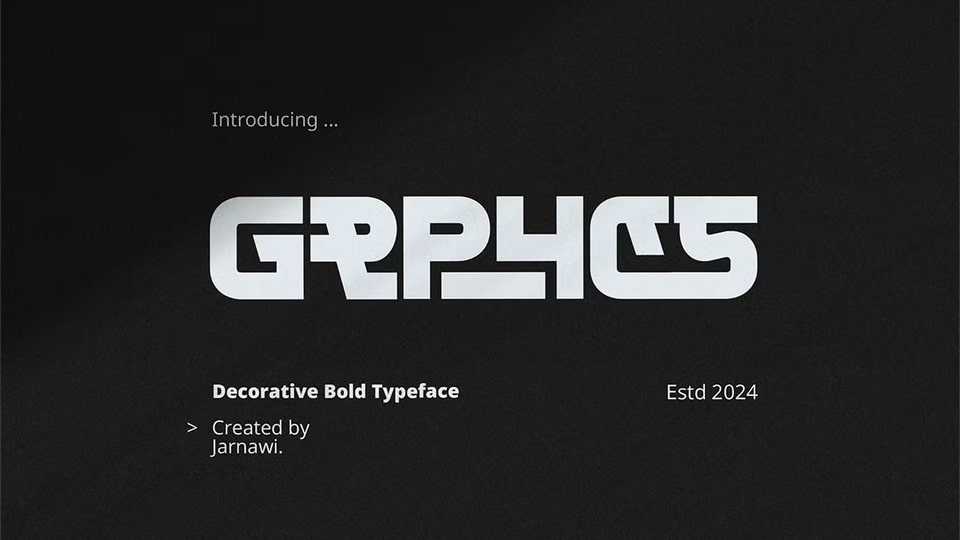
Download Grphcs font, a distinctive urban bold typeface designed to make a statement. This unique font combines modern flair with an edgy aesthetic, making it the perfect choice for impactful logo designs.